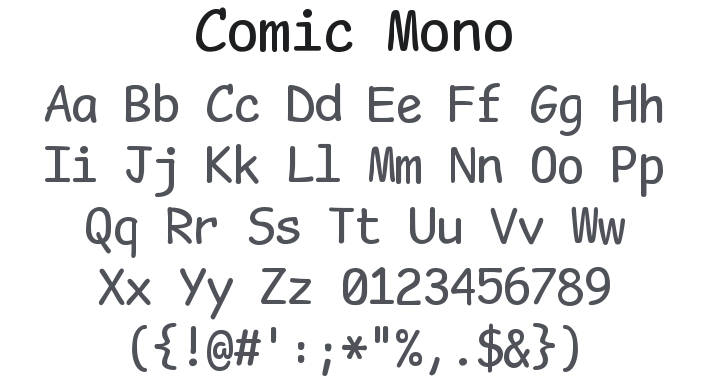
Comic Mono Font Family
About Comic Mono
Comic Mono is a monospaced typeface created by Thai software developer dtinth (Thai Pangsakulyanont) as a fork of Shannon Miwa's Comic Shanns, itself a Comic Sans inspired font for coding environments. Released in 2019, Comic Mono adjusts all glyphs to identical widths using a Python-based monospacifier script, with metrics aligned to Cousine for clean rendering alongside system fonts. Available in Regular and Bold weights, it delivers the familiar rounded, informal character of Comic Sans in a fixed-width format suited to terminal emulators, code editors, and IDE environments where developers want a touch of personality without sacrificing the legibility that monospacing provides.